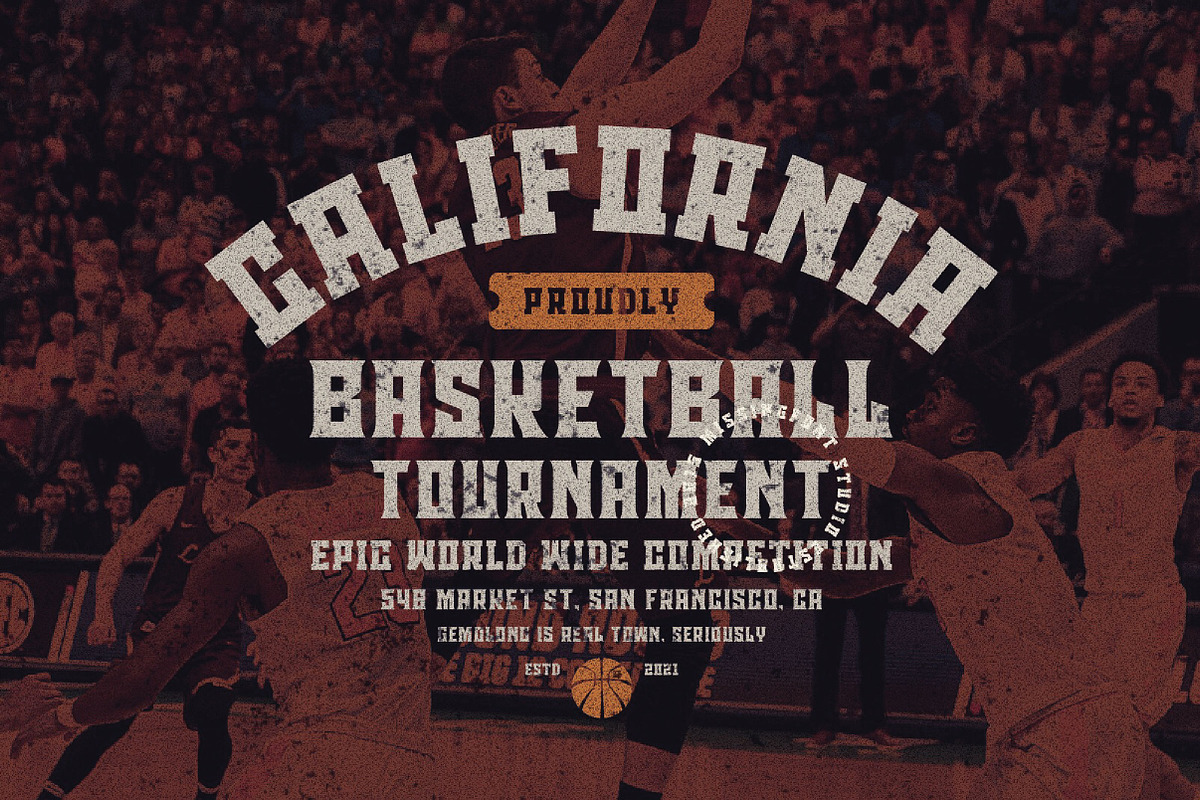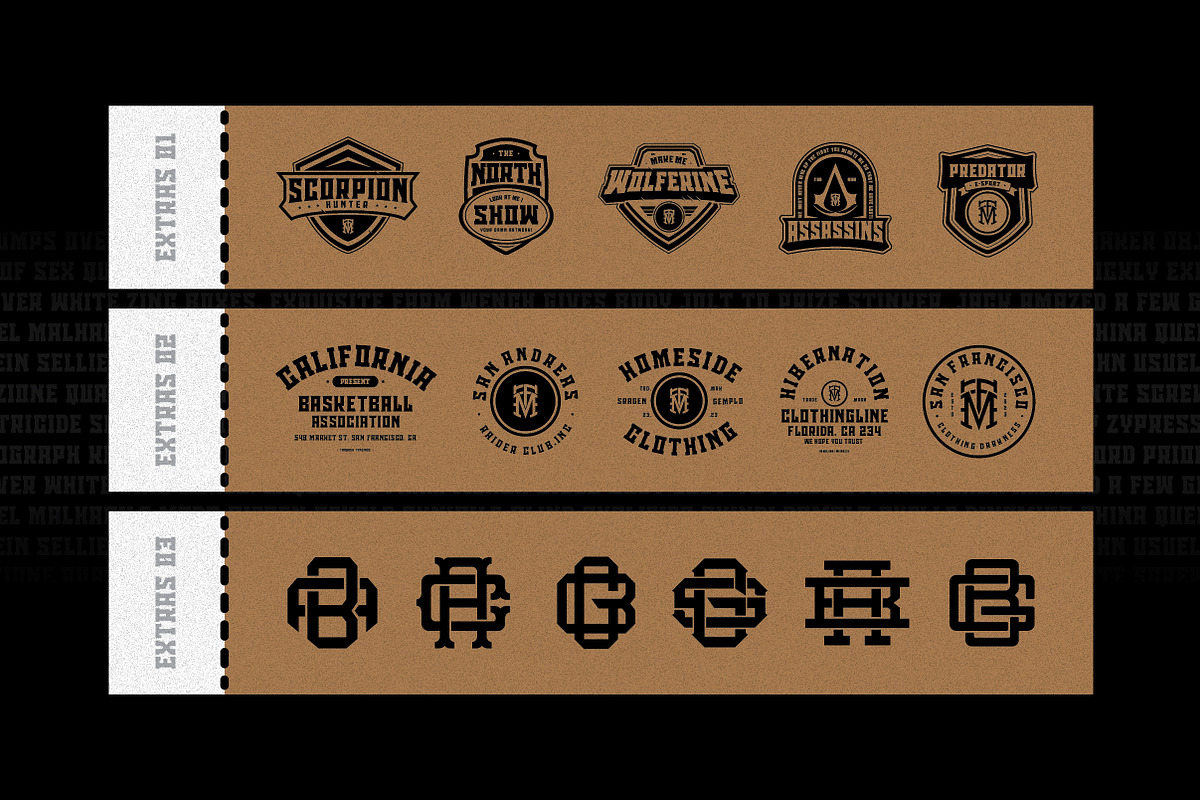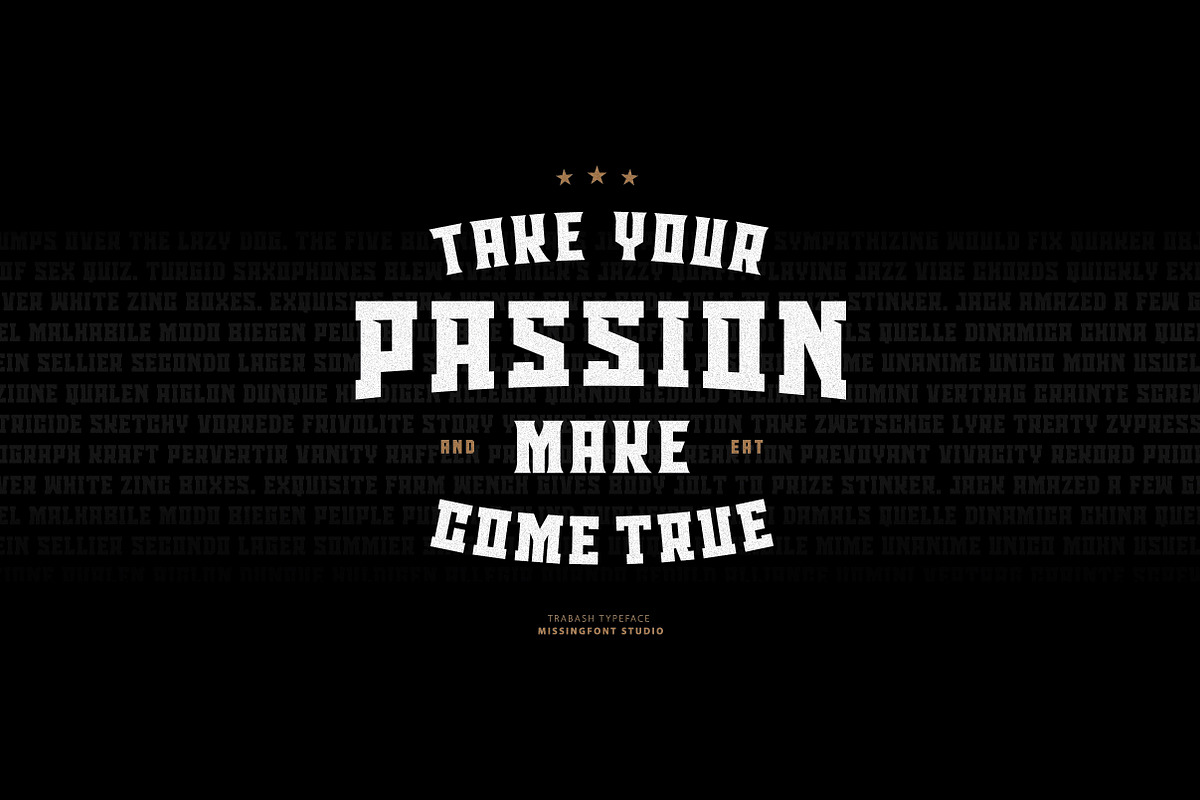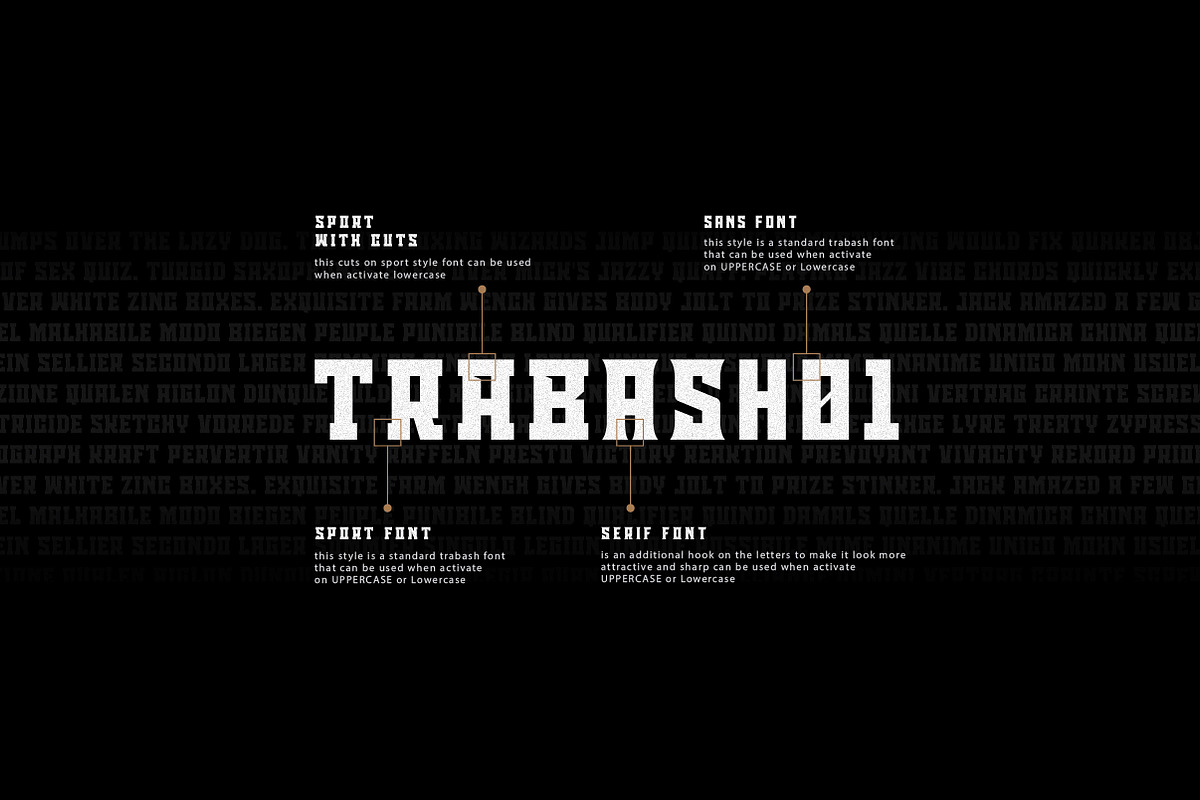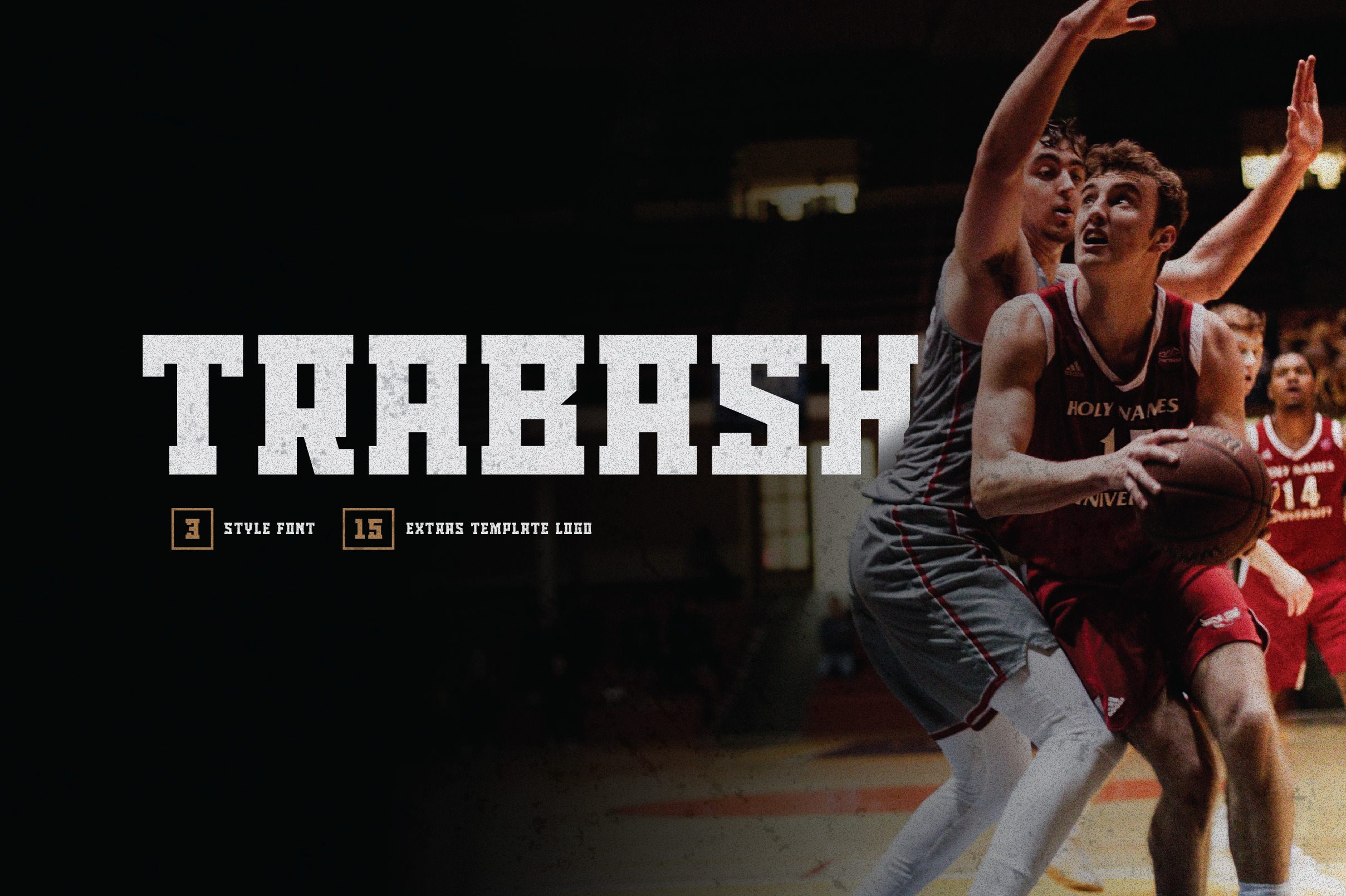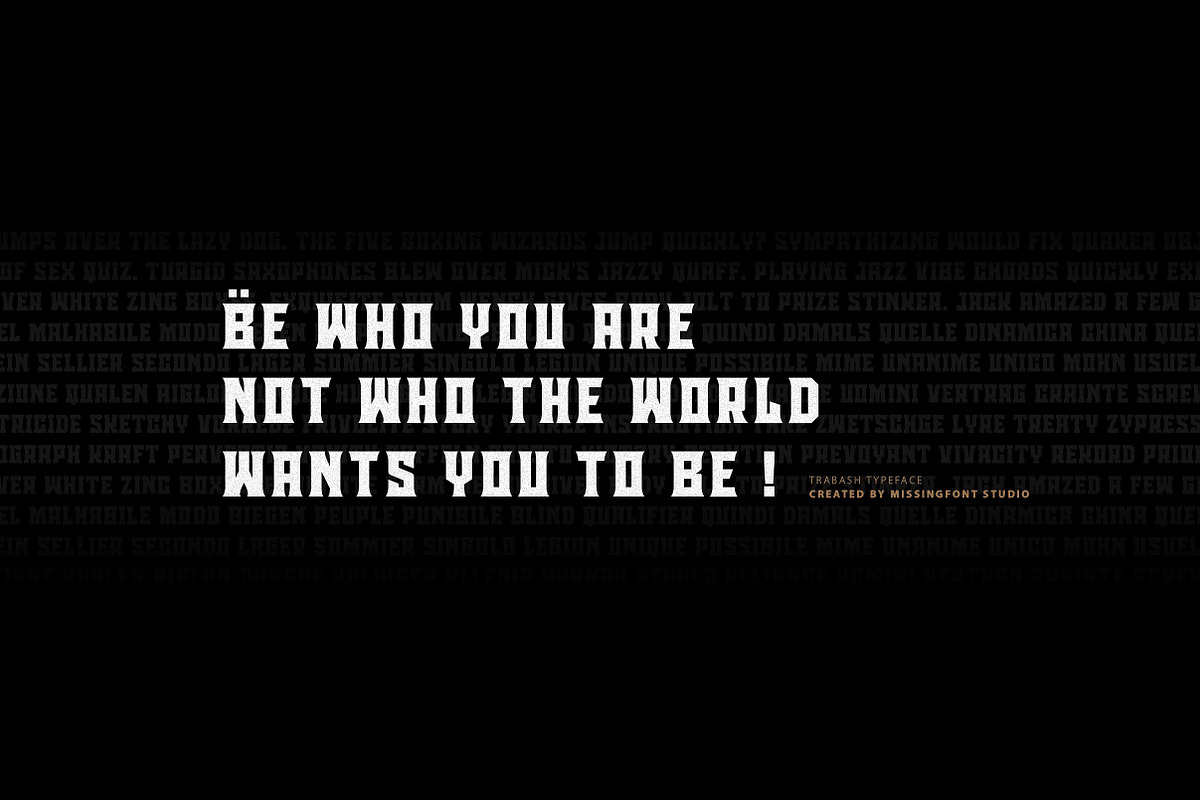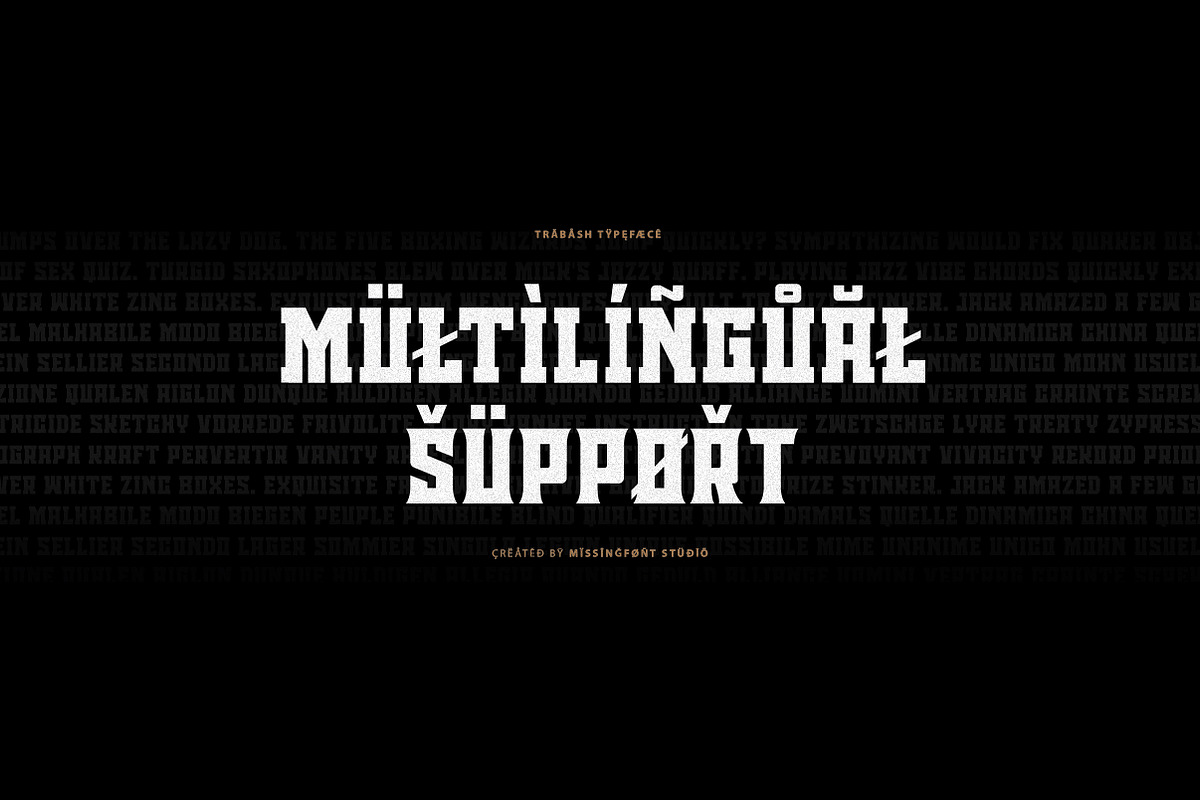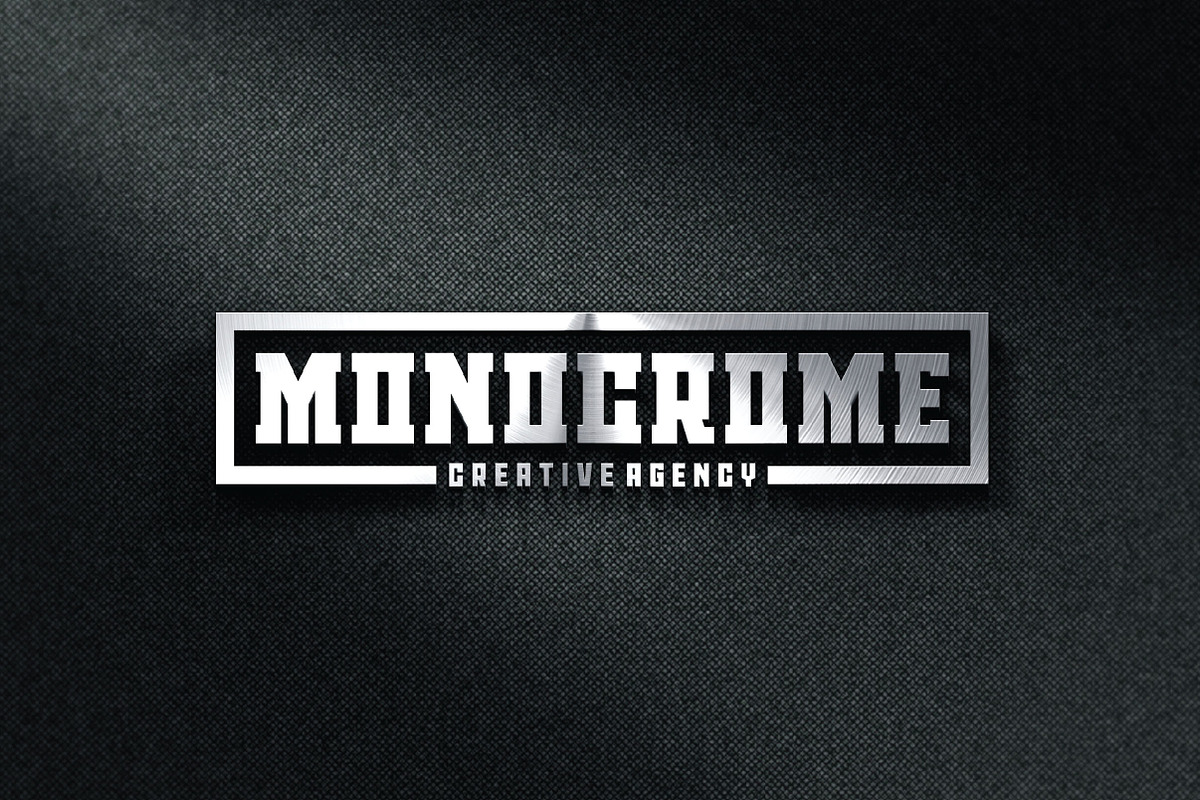
Slab font - Trabash Typeface
TRABASH is a Display typeface with Three Style font & Extras template logo
This typeface built for logotypes, sports branding, posters, apparel design, magazine headlines, labels and so much more.
Support for most western languages including: Afrikaants, Basque, Breton, Catalan, Danish, Dutch, English, Finnish, French, Gaelic, German, Icelandic, Indonesian, Irish, Italian, Norwegian, Portuguese, Sami, Spanish, Swahili and Swedish.